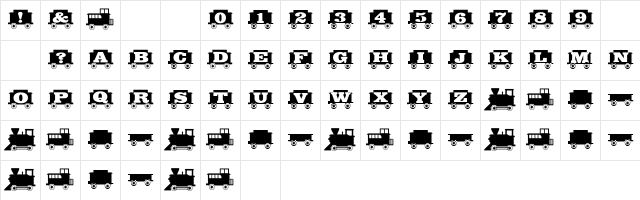
GrandFunkRR Regular
GrandFunkRR Family
Design Context for GrandFunkRR
GrandFunkRR has an approachable, lighthearted character - its loose, expressive forms are well-suited to children's content, casual branding, and fun-first design.
Font Pairing: Pairs well with a rounded or humanist sans for body copy, maintaining the friendly tone without relying on GrandFunkRR to carry extended reading.
Pro Tip: Use GrandFunkRR at larger display sizes where its expressive character can land. Pair with a clean, simple sans for body copy to maintain readability.